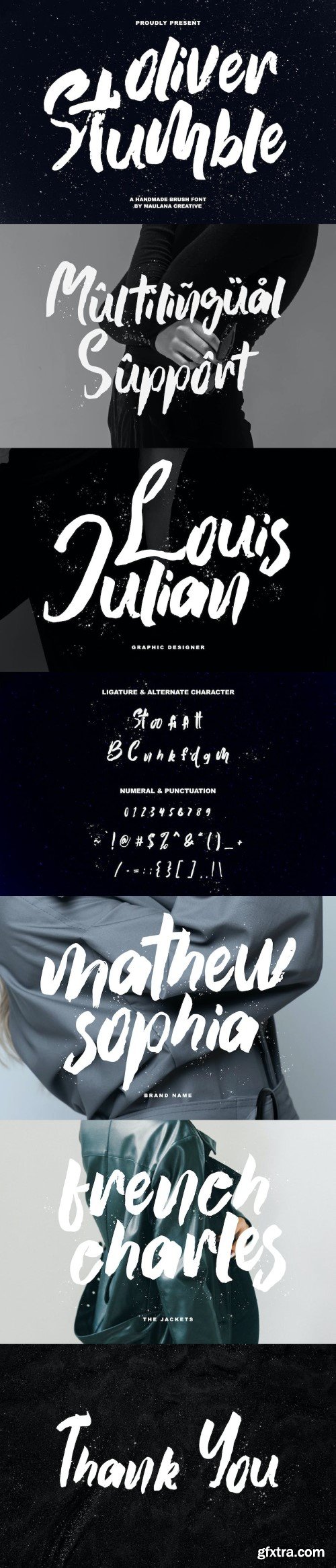
奥利ver 斯图姆 手工刷 字体
Oliver Stumble handmade brush font. This font is good for logo design, Social media, Movie Titles, Books Titles, a short text even a long text letter and good for your secondary text font with signature or script typeface. Make a stunning work with Oliver Stumble handmade brush font.